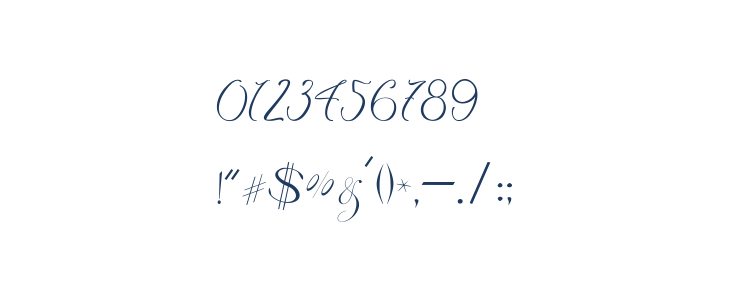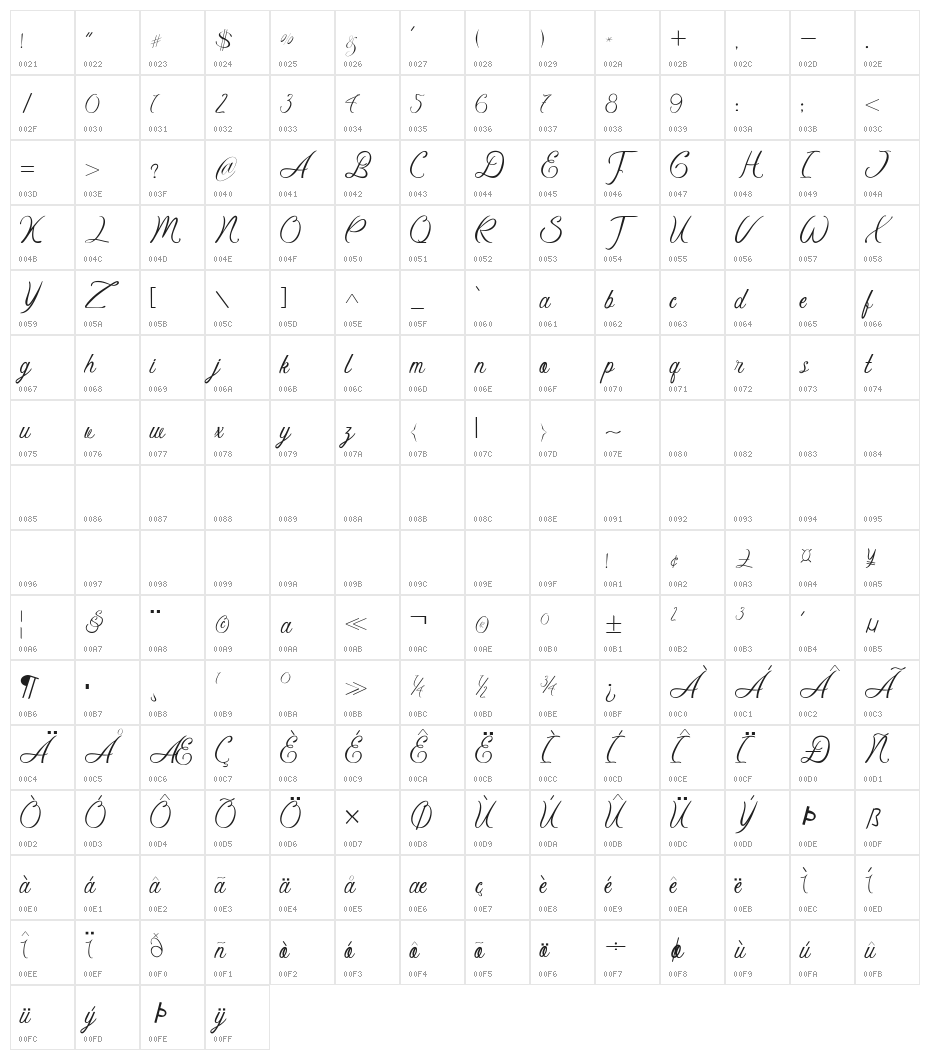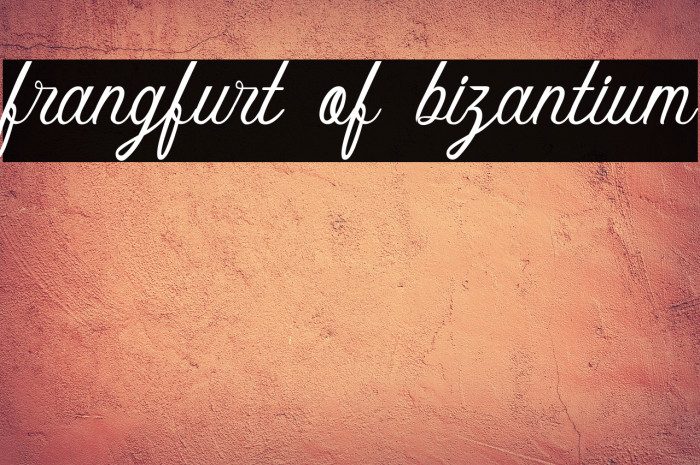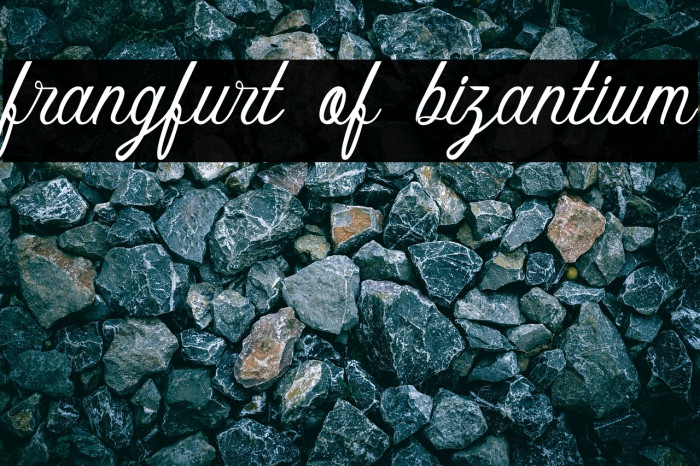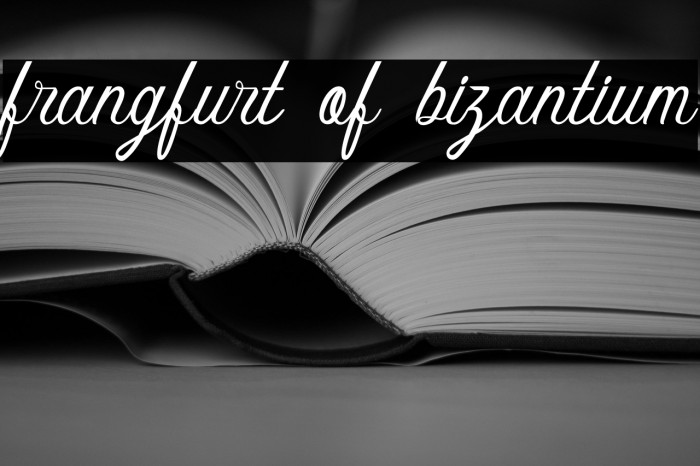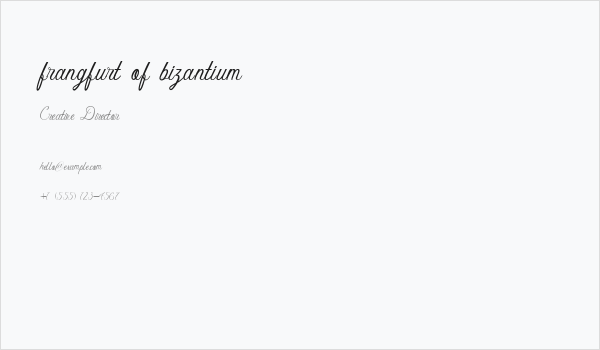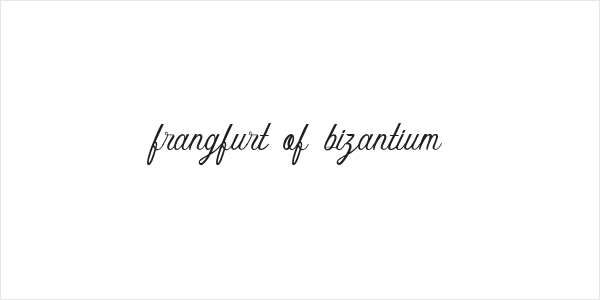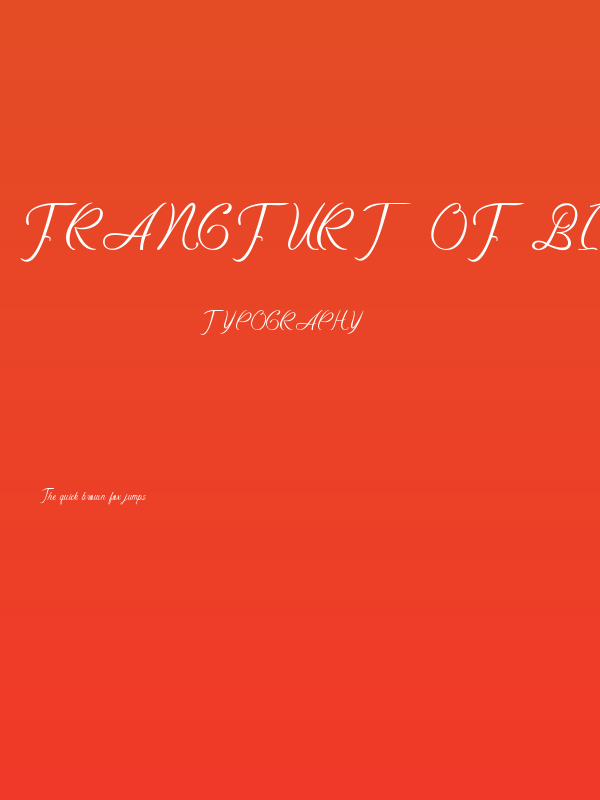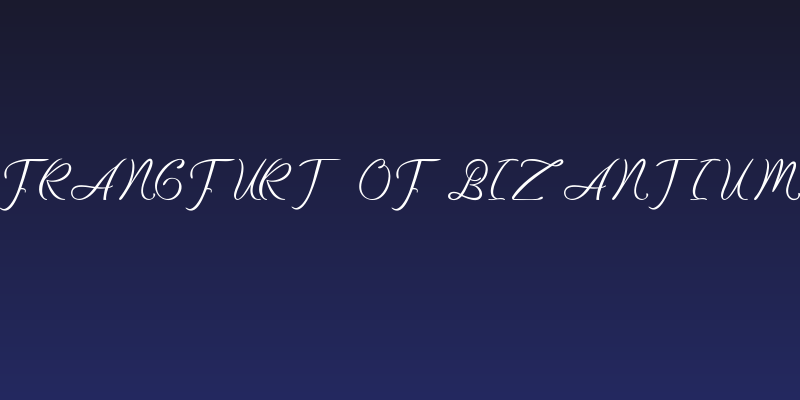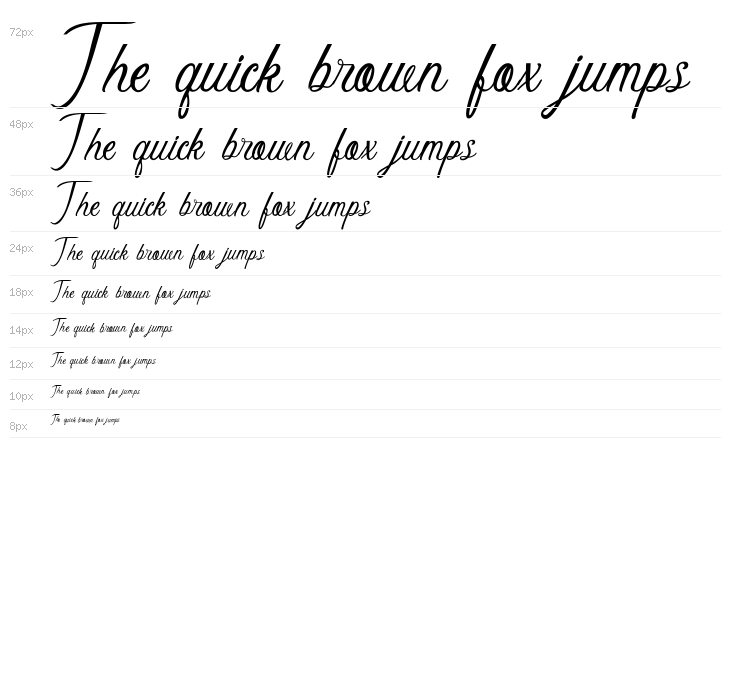
frangfurt of bizantium Font
frangfurt of bizantium Description
This elegant script font features a flowing, cursive style with a sophisticated flair. The uppercase letters exhibit graceful loops and swashes, giving them a sense of movement and fluidity. The lowercase letters maintain a consistent slant, enhancing the font's overall cohesion and elegance. Numbers and special characters are designed with the same attention to detail, ensuring a harmonious look across all elements. The font's delicate strokes and refined curves make it ideal for projects that require a touch of class and sophistication.
| Proposed Projects | Ideal for wedding invitations, elegant branding, personal stationery, and high-end product packaging. |